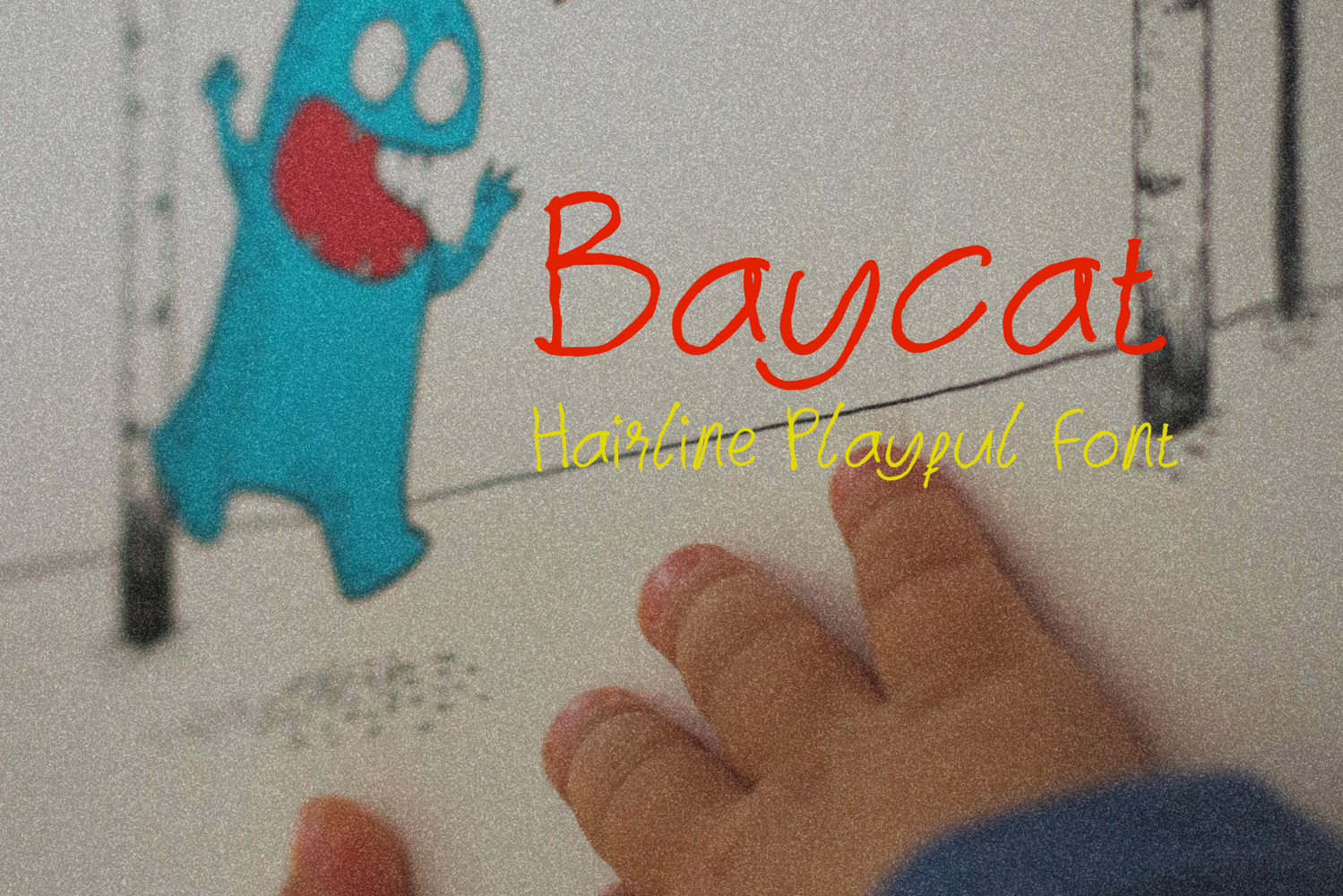
Baycat hairline
Make a bold statement with Baycat hairline's playful font and unique style. This must-have playful font will elevate any craft and bring out your inner creativity.